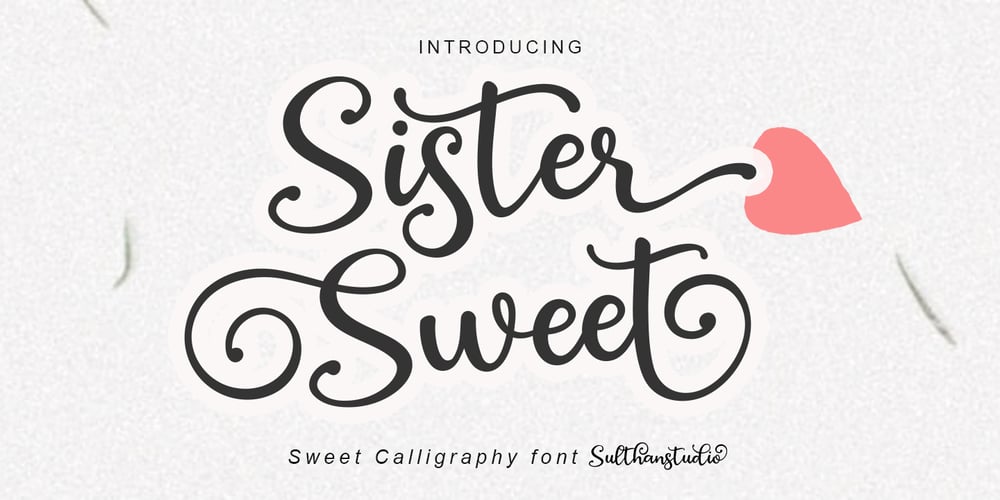
Sister sweet Font Family was designed by Nasrullah and published by Sulthan Studio. Sister sweet contains 1 styles and family package options. Sister Sweet is an amazing handcrafted script font that we created in a style that is simple yet light but very classy for those of you who do work and crafts. It’s perfect for all kinds of work you do with multiple purposes like stickers, logos, wedding invitations, titles, t-shirts, letterheads, signage, labels, news, posters, badges, etc.